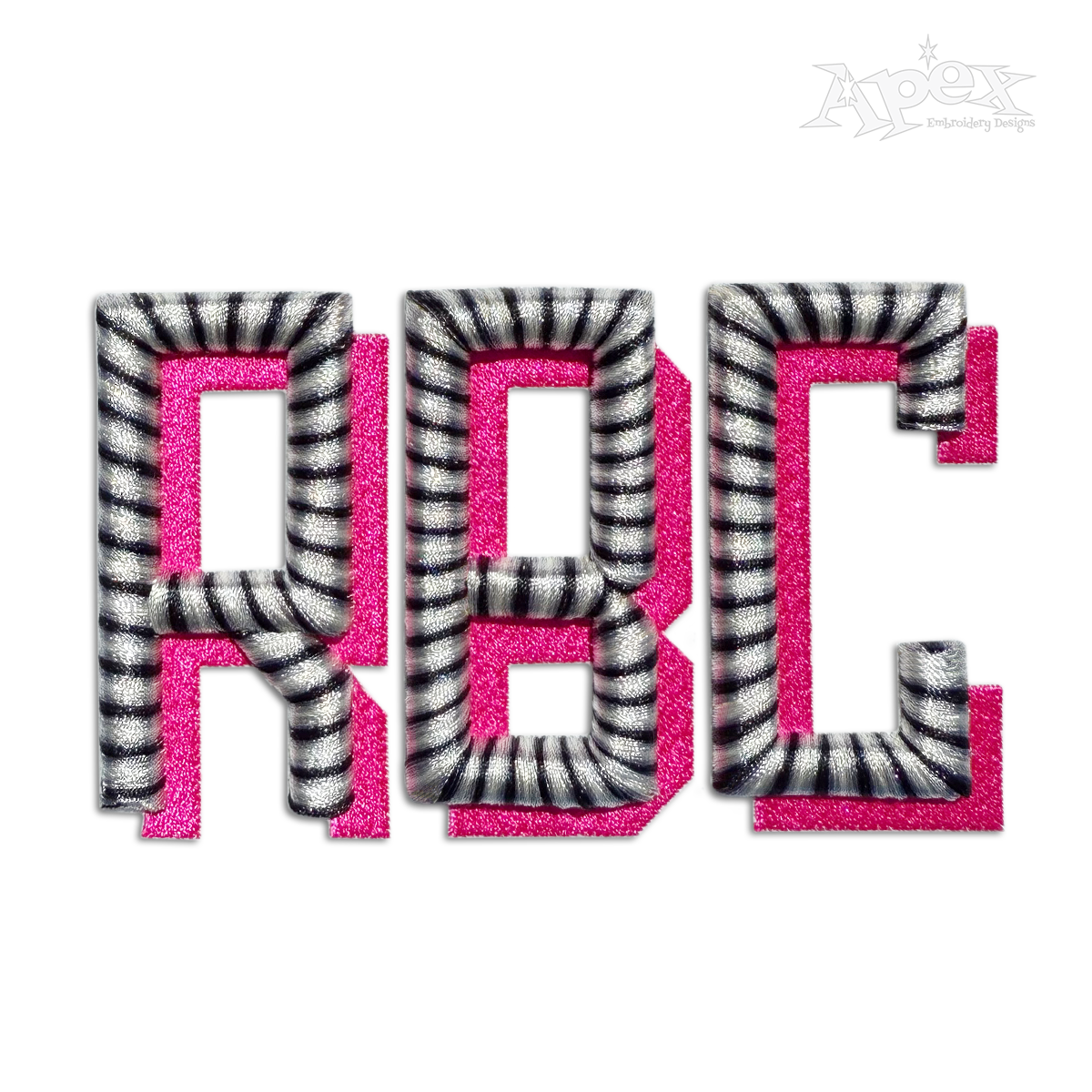
Modern Block Shadow 3D Puff Embroidery Font
When thread breaks into the third dimension, embroidery transforms from a surface embellishment into an architectural statement. The Modern Block Shadow 3D Puff alphabet was born from an obsession with classic collegiate warmth fused with bold contemporary streetwear culture. In our digitizing studio, we wanted to capture the electric nostalgia of vintage stadium banners while elevating it with high-loft, tactile volume. By pairing an anchored, crisp flat-fill shadow with a soaring raised satin stitch, this typeface creates dramatic cast shadows and effortless legibility that commands attention from across the room.
Project Ideas for Modern Block Shadow 3D Puff
The tactile weight and retro-modern attitude of this two-color stacked design make it a standout choice for high-impact textile personalization:
- Custom Streetwear Headwear: Transform structured snapbacks, five-panel caps, and dad hats into boutique-grade label merchandise with raised initials.
- Collegiate Crewnecks & Varsity Jackets: Frame school letters, graduation years, or collegiate nicknames across heavyweight fleece and melton wool.
- Personalized Canvas Gear Bags: Elevate gym holdalls, weekender duffels, and utility boat totes with resilient, raised monograms that resist heavy wear.
- Retro Youth Apparel: Bring energetic playground charm to kids' denim jackets, tracksuits, and personalized birthday jersey tops.
- Bespoke Resort & Team Merchandise: Create high-end sideline apparel, tennis club pullovers, or custom boating gear with a distinct luxury athletic finish.
Because dimensional puff embroidery interacts uniquely with fabric tension, intentional placement ensures your needlework lays flat and punches clean:
- Cap Front Panels: Center the 1.75" lettering squarely on structured buckram panels for maximum vertical pop and crisp foam shearing.
- Center Chest & Mid-Torso: Utilize the 2.25" or 2.75" scales directly across the chest of hoodies and fleece pullovers for an authentic retro varsity aesthetic.
- Upper Back Yoke: Position horizontal lettering 3 to 4 inches below the collar band across jackets for high-visibility athletic branding.
- Diagonal Corner Framing: Stitch single monograms on the bias of tote exterior pockets or heavy canvas work aprons for a fresh modern twist.
Modern Block Shadow 3D Puff Craft & Letterform Details
Engineering a flawless 3D puff font requires vastly different digitizing architecture than standard flat embroidery. Every letter in this collection is constructed with specialized sequence timing: the shadow element stitches first as an ultra-smooth, high-density tatami fill, creating a clean tonal foundation that prevents the puff letter from distorting the base fabric. The foreground block letters are then mapped with precision-cut satin caps and reinforced edge perforation. Our studio calibrated the end caps and corner junctions with specialized open perforations designed to sheer embroidery foam cleanly on all sides, ensuring zero foam fuzz peaks through the perimeter. Generous pull compensation and extra-dense top cover stitches envelop the loft completely, yielding crisp, razor-sharp geometric corners, satisfyingly straight vertical uprights, and a decadent, tactile relief that feels as magnificent as it looks.